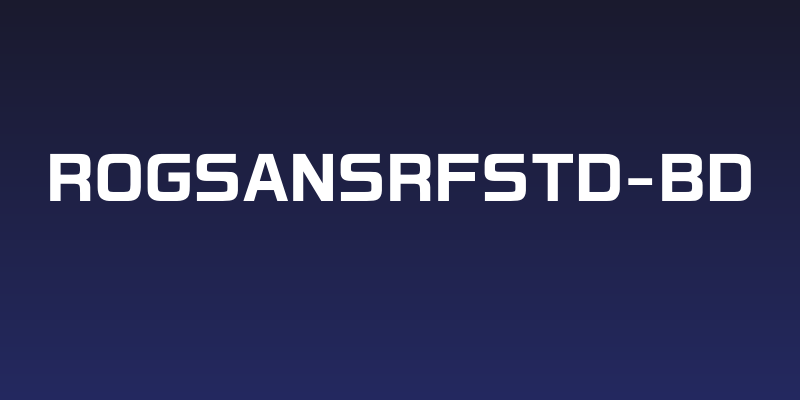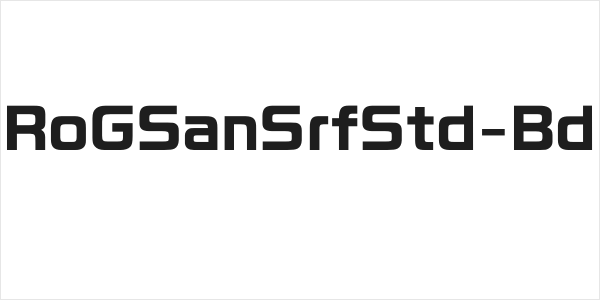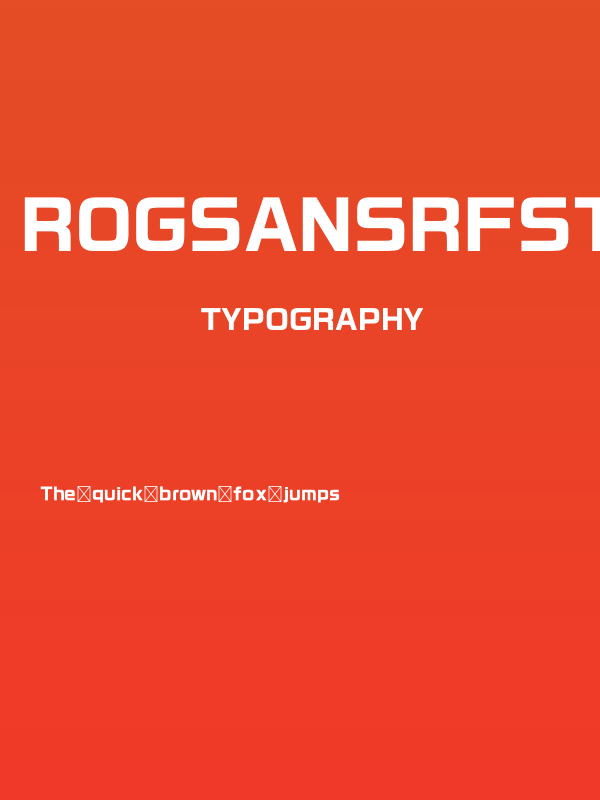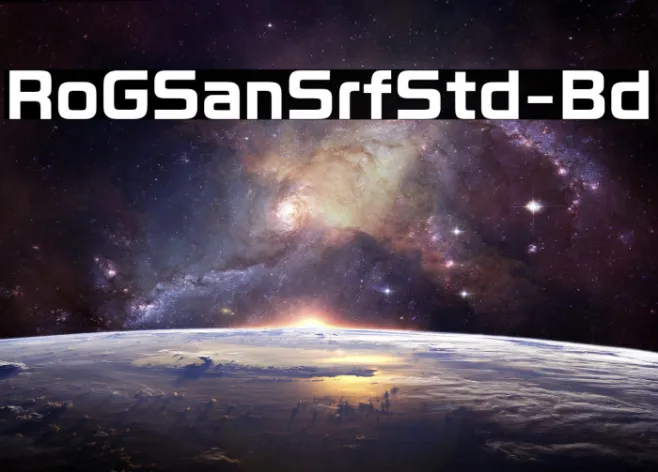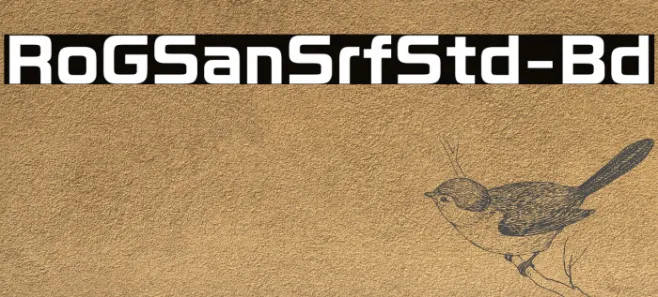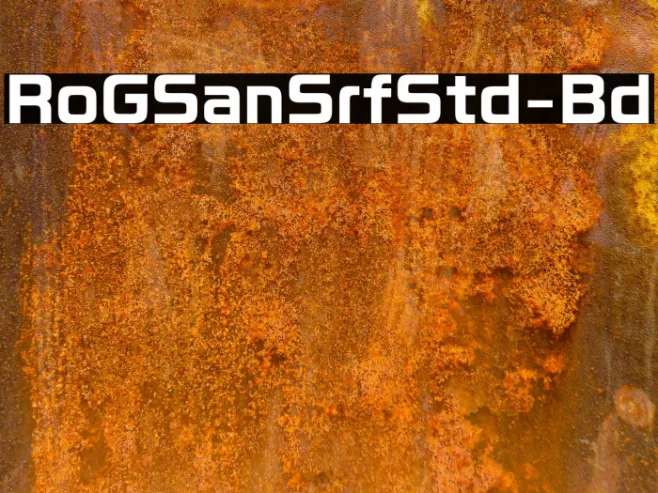
RoGSanSrfStd-Bd Font
RoGSanSrfStd-Bd Description
This font features a bold and modern sans-serif style with clean, geometric lines and a strong presence. The uppercase letters are uniform in height, providing a balanced and structured appearance. The lowercase letters maintain a consistent width, contributing to the overall harmony of the typeface. Numerals are clear and easily distinguishable, making them suitable for various applications. The special characters are well-defined, ensuring readability and versatility. This font is designed to convey clarity and professionalism, making it ideal for contemporary design projects.
| Use Case | Headlines, Logos, Digital Interfaces |
| Proposed Projects | Ideal for branding, advertising, headlines, and digital interfaces where clarity and impact are essential. |